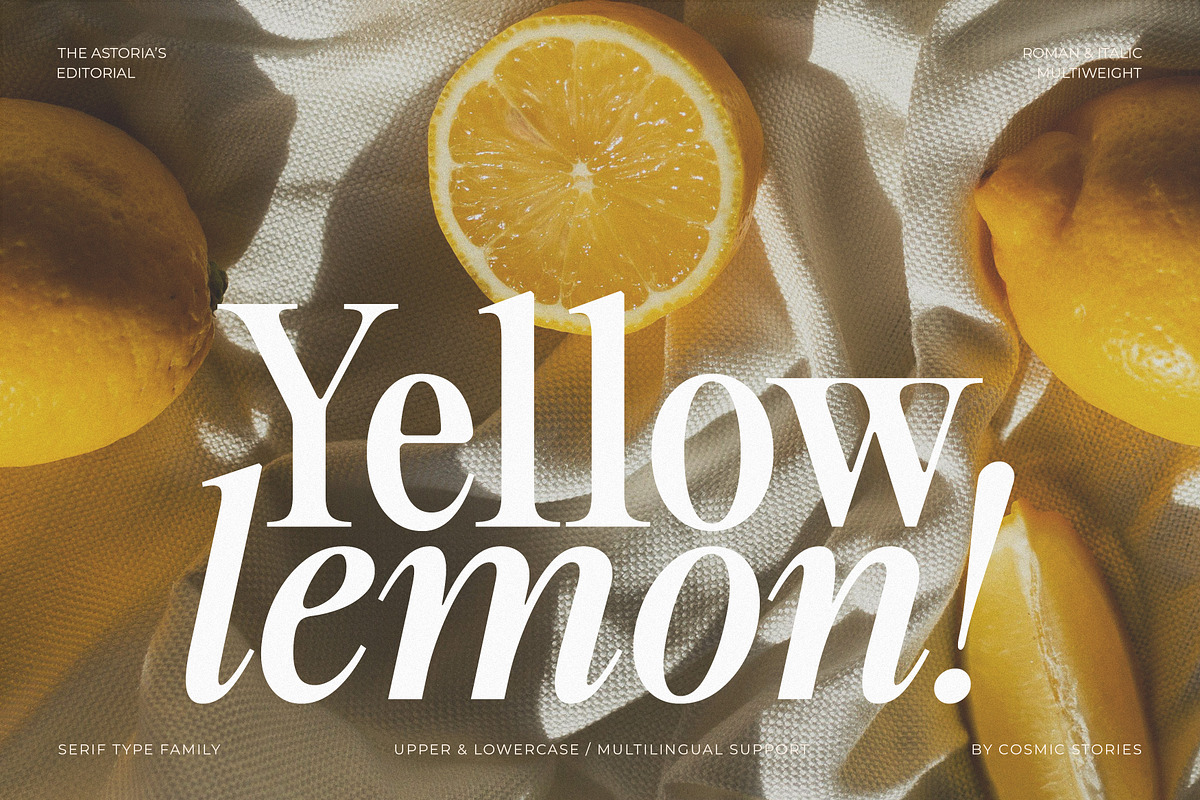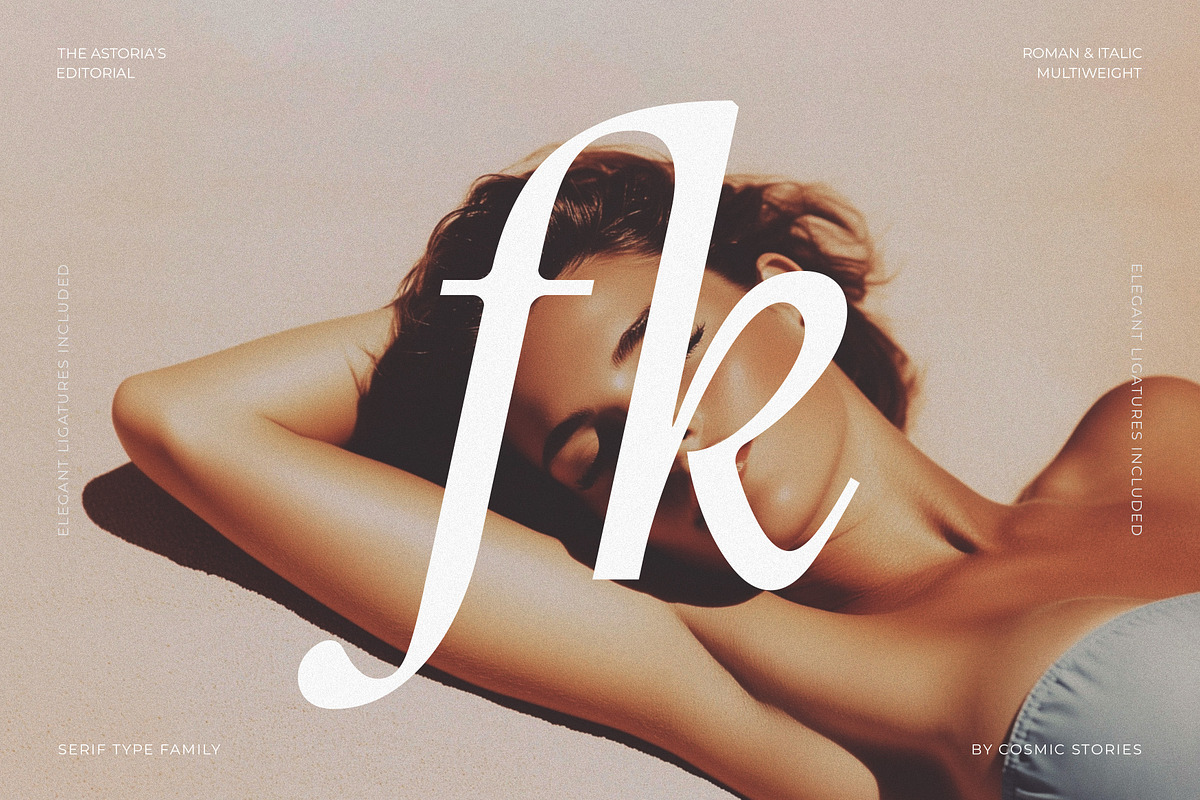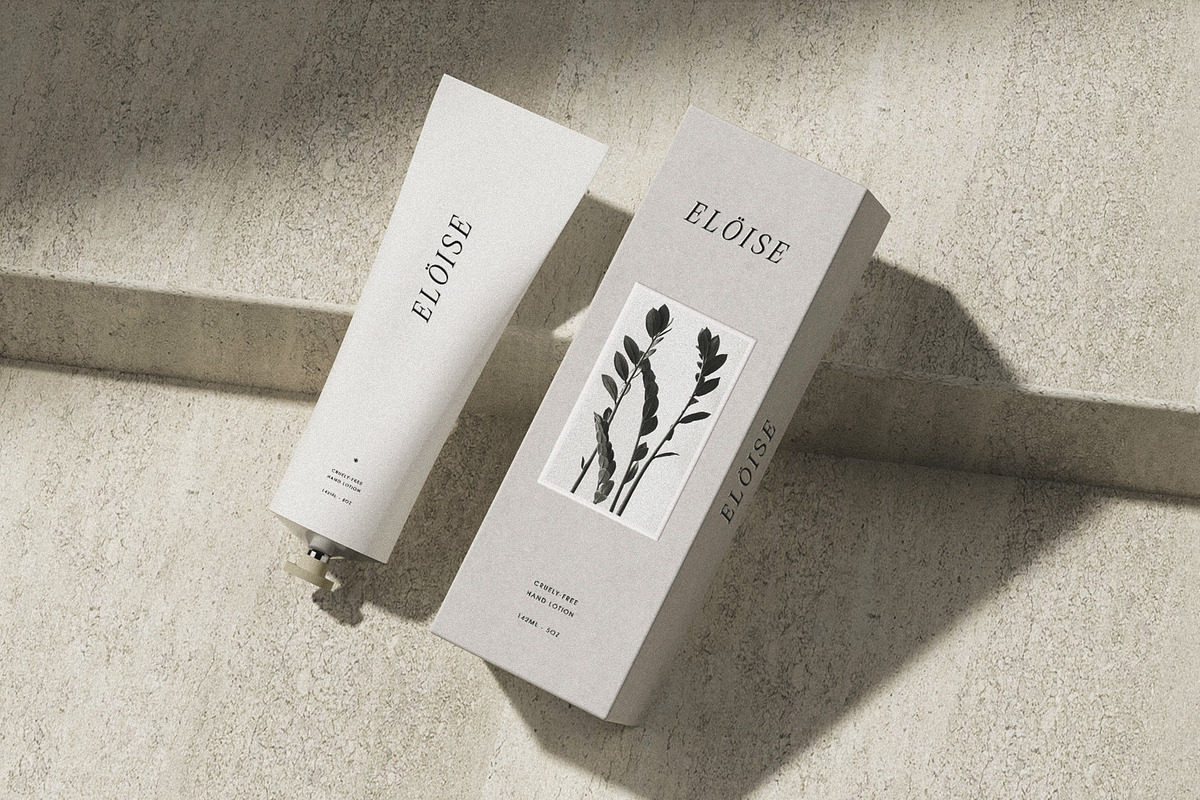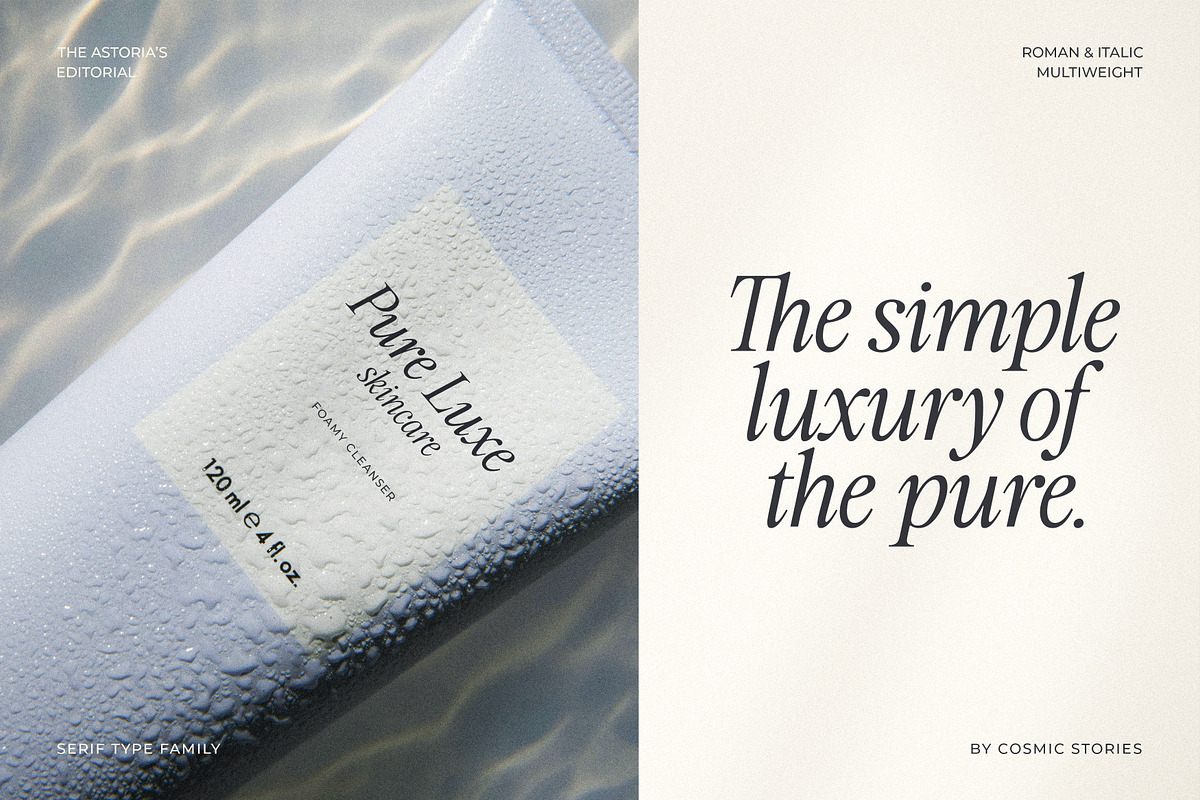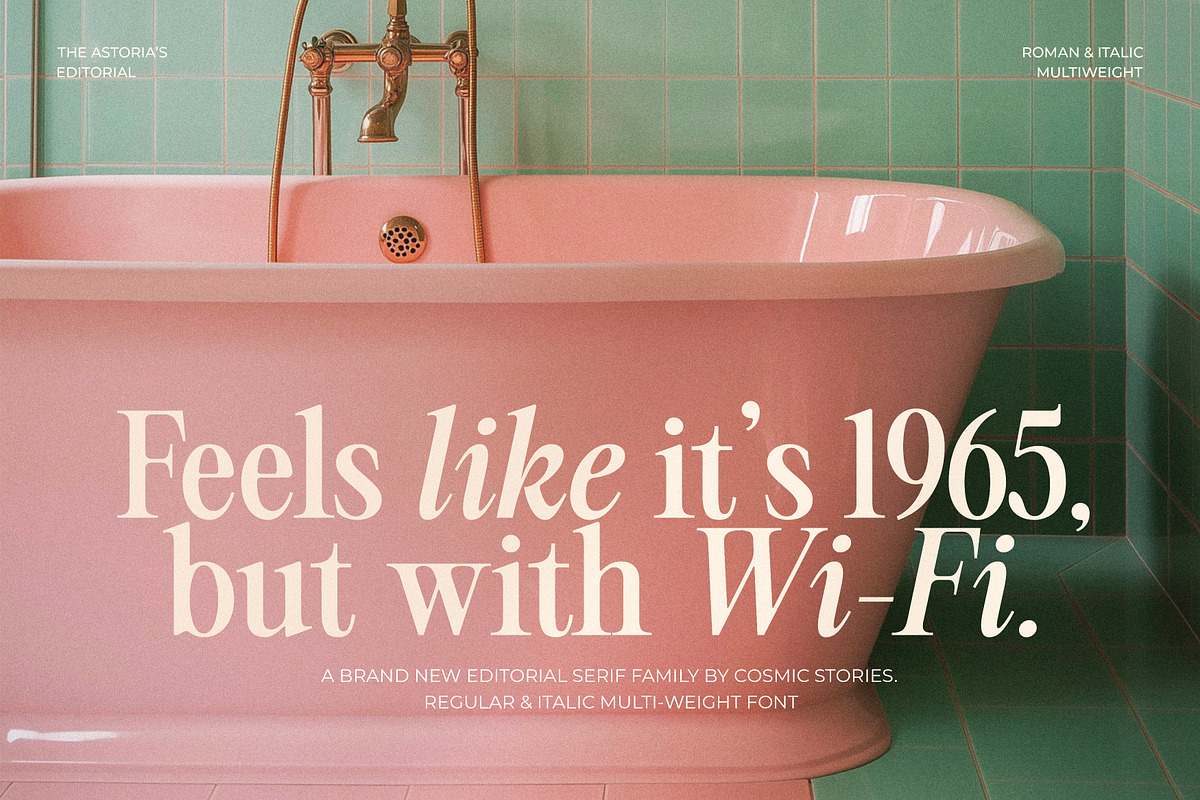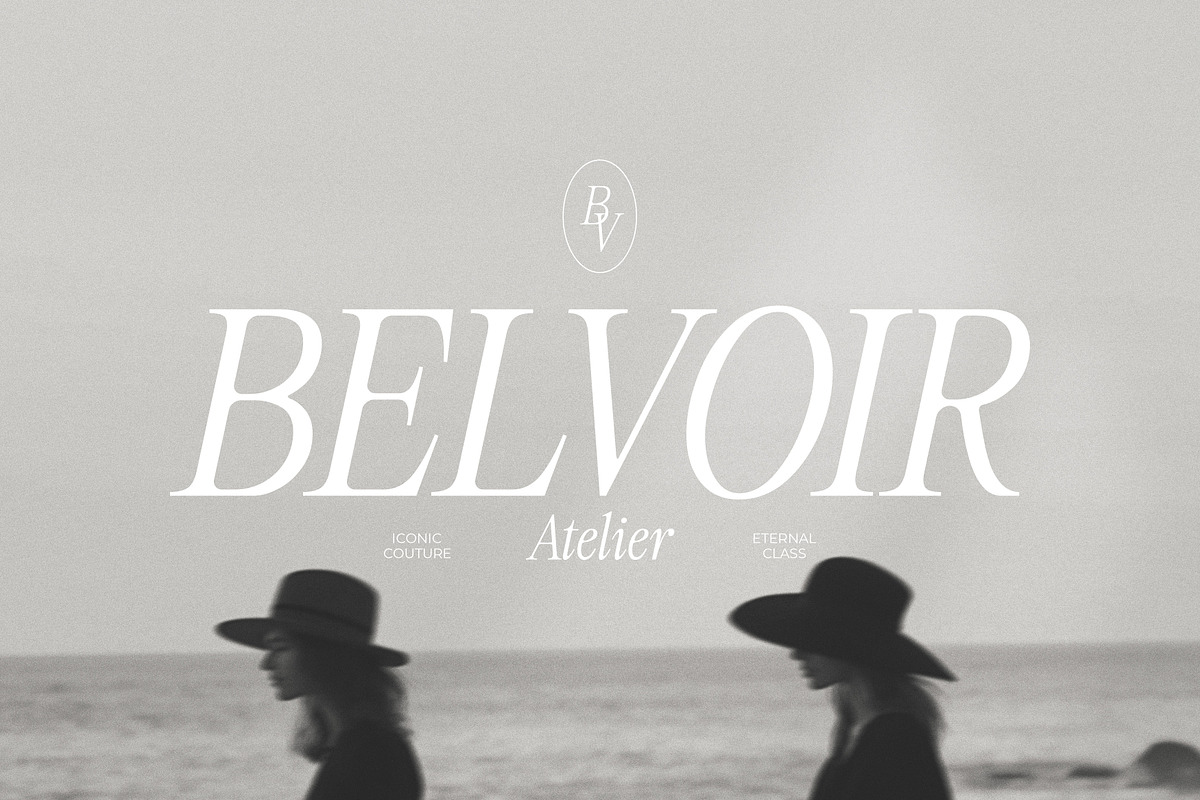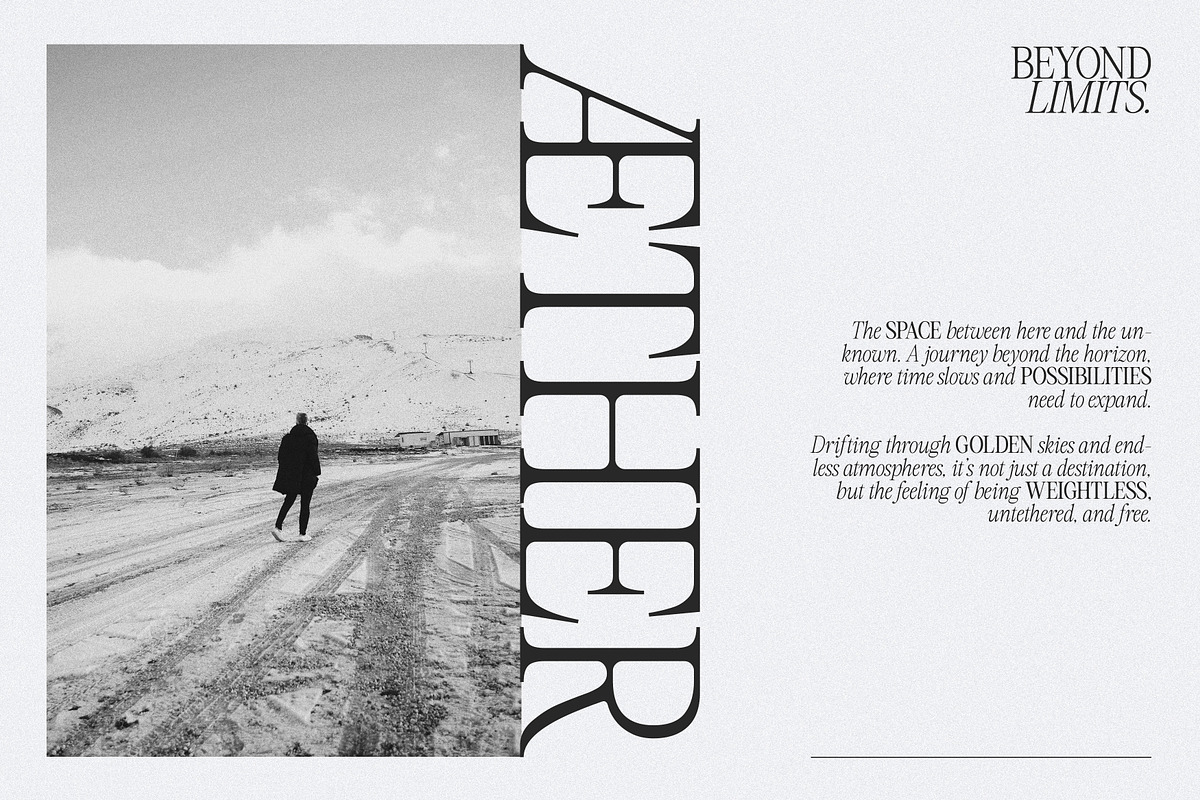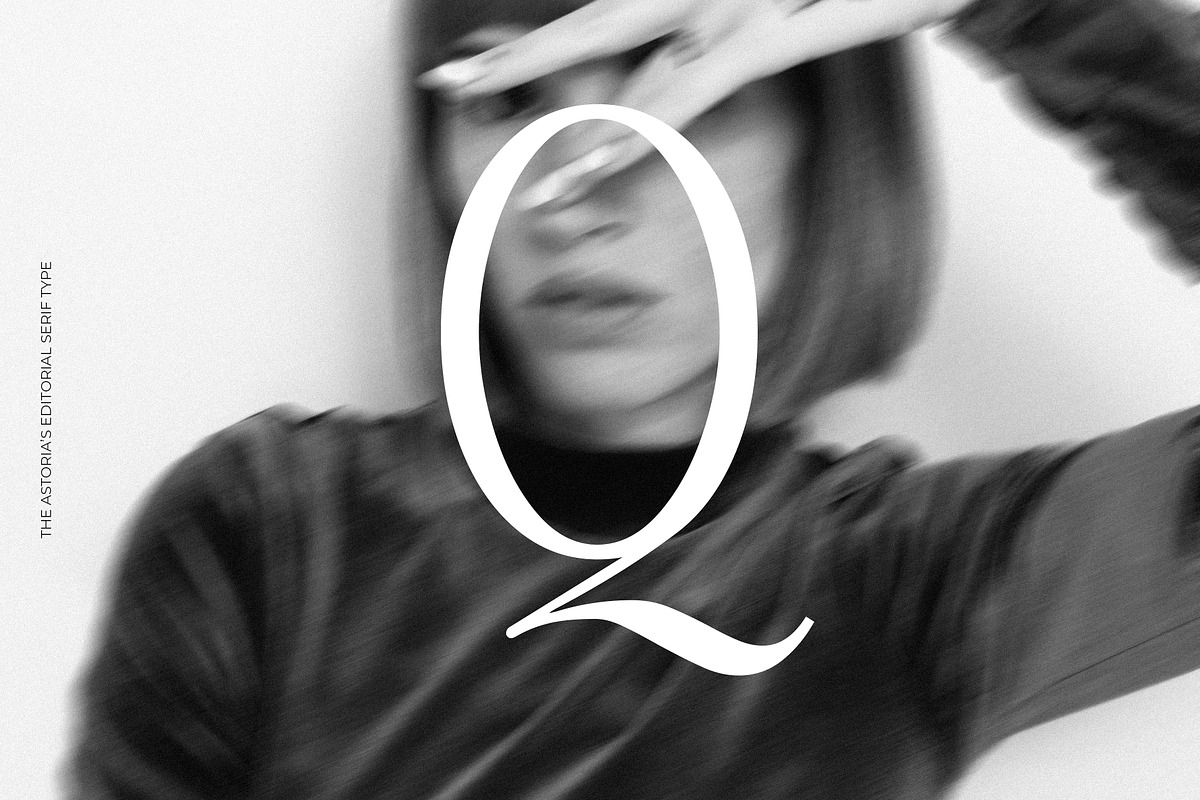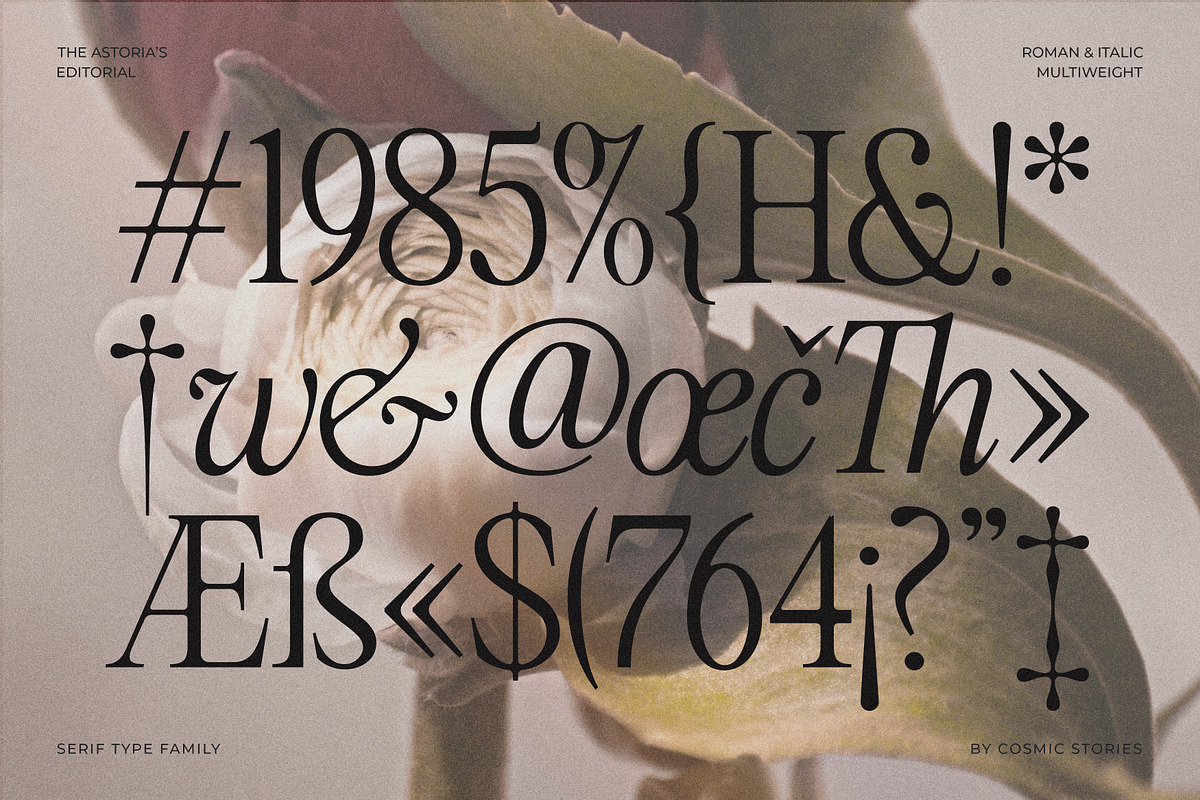
The Astoria's Editorial Serif
Meet The Astoria's Editorial Serif
A truly versatile editorial serif that effortless blends retro charm with a modern touch. The Astoria's Editorial carries the elegance of advertisement typography with a bold retro soul. Inspired by classic publishing and vintage signage, this typeface blends nostalgic charm with a contemporary edge, making it an essential tool for those who crave both timeless sophistication and modern versatility.
With with a total of 14 styles (7 finely crafted weights and matching italics), and refined ligatures, this font moves effortlessly between editorial layouts, brand identities, luxury packaging, and expressive headlines. Whether you’re designing a heritage-inspired logo or a sleek magazine spread, The Astoria's Editorial delivers impact with a lot of personality.
What makes it stand out?
- A retro-modern fusion with a unique voice
- 7 weights + italics (14 total different fonts)
- Elegant ligatures
A voice that feels classic yet fresh with endless possibilities. So... which style is your perfect match?